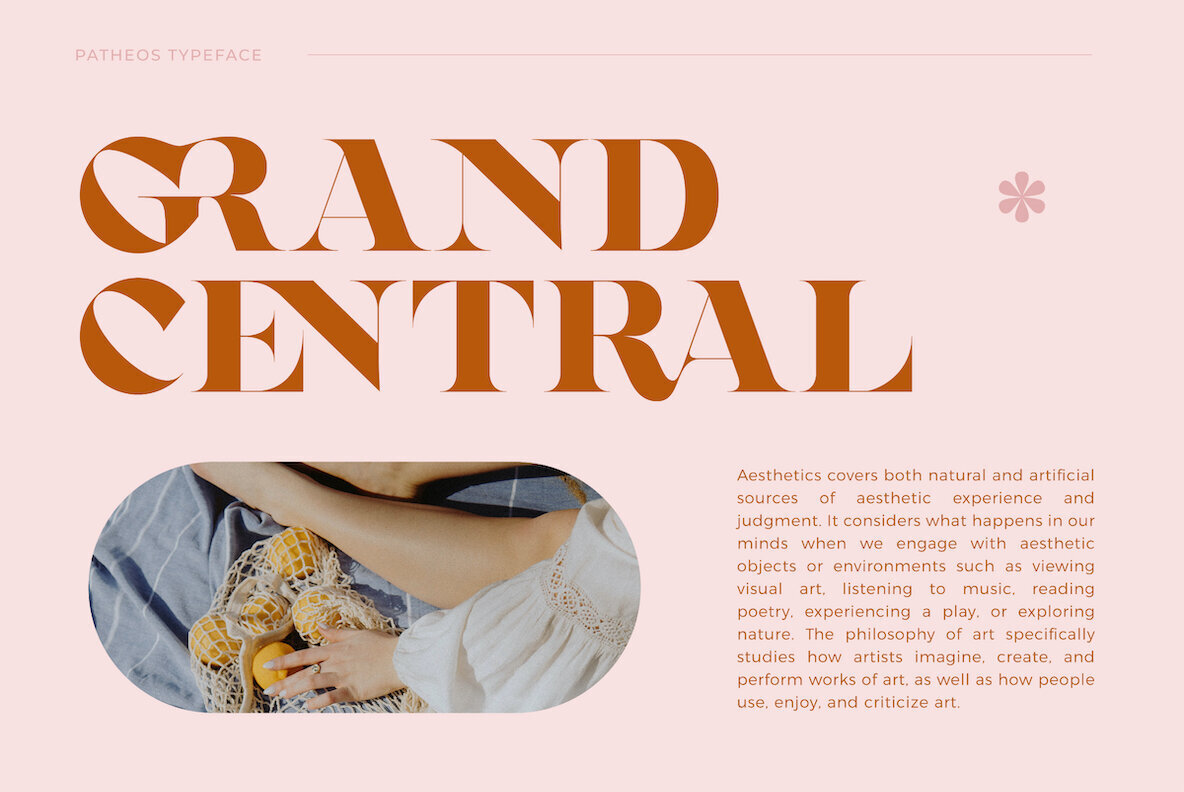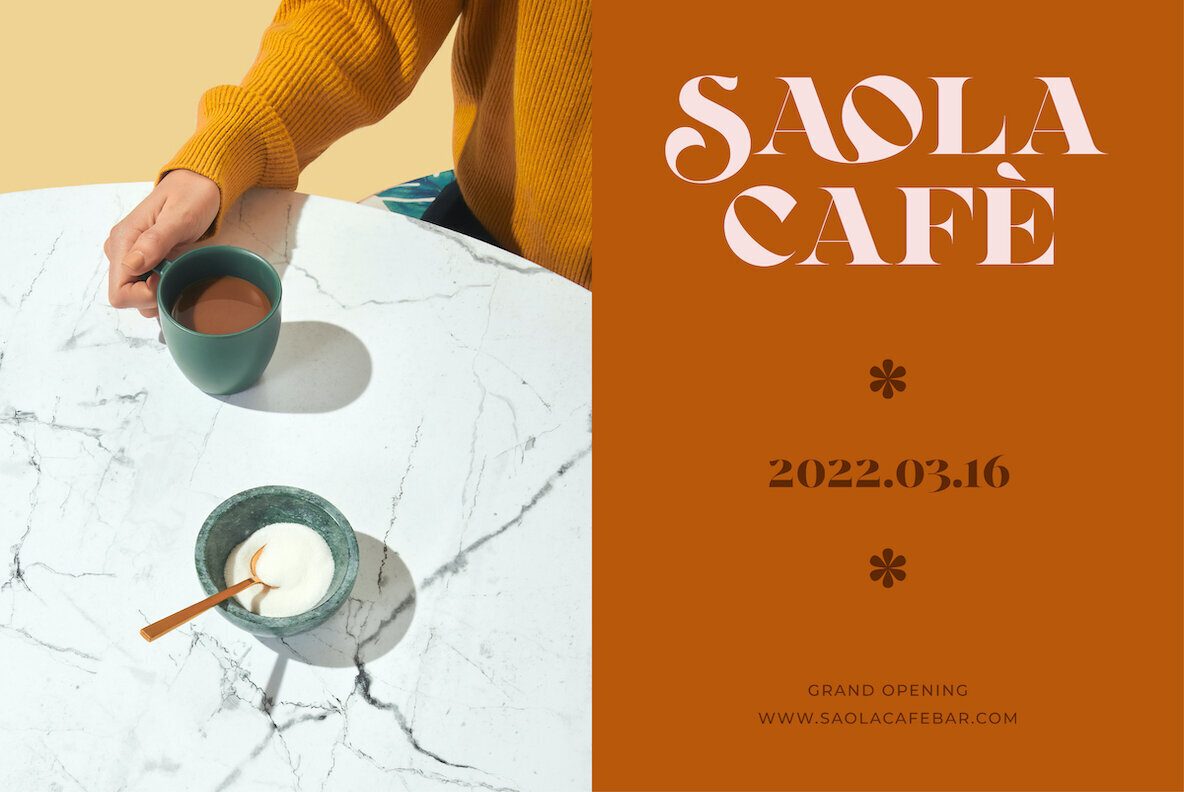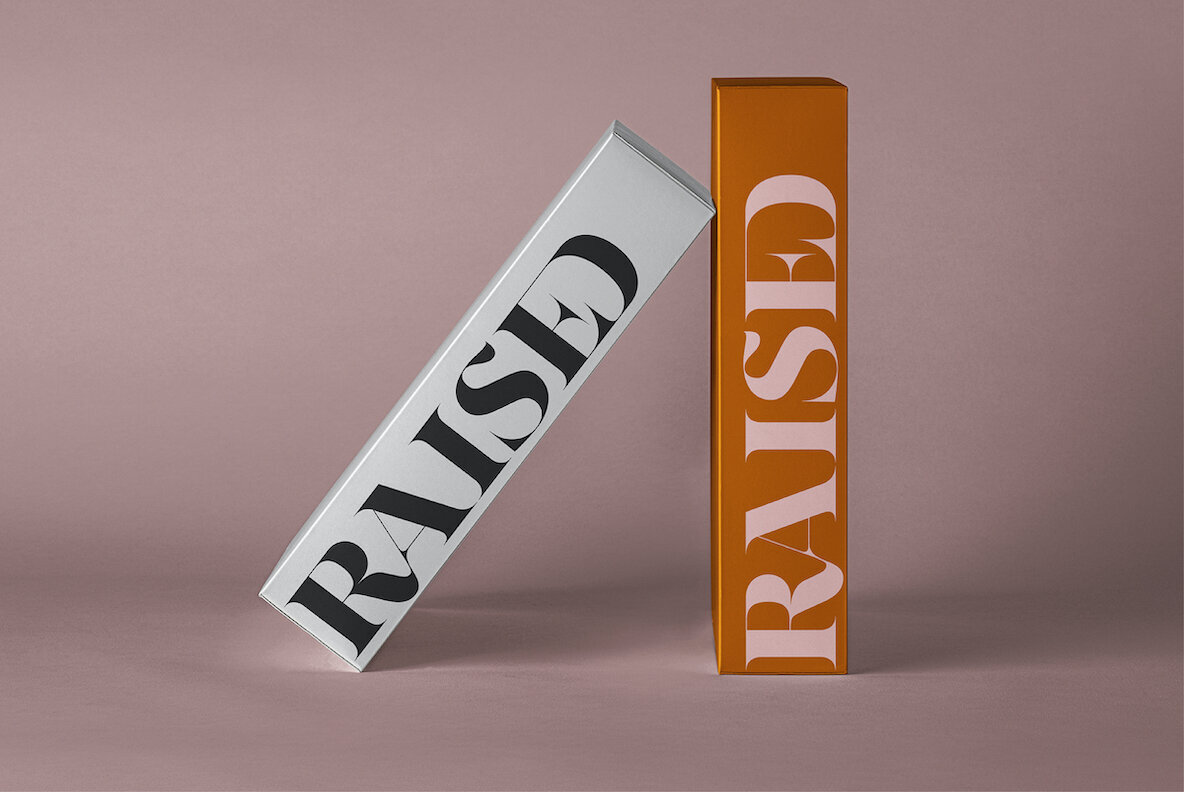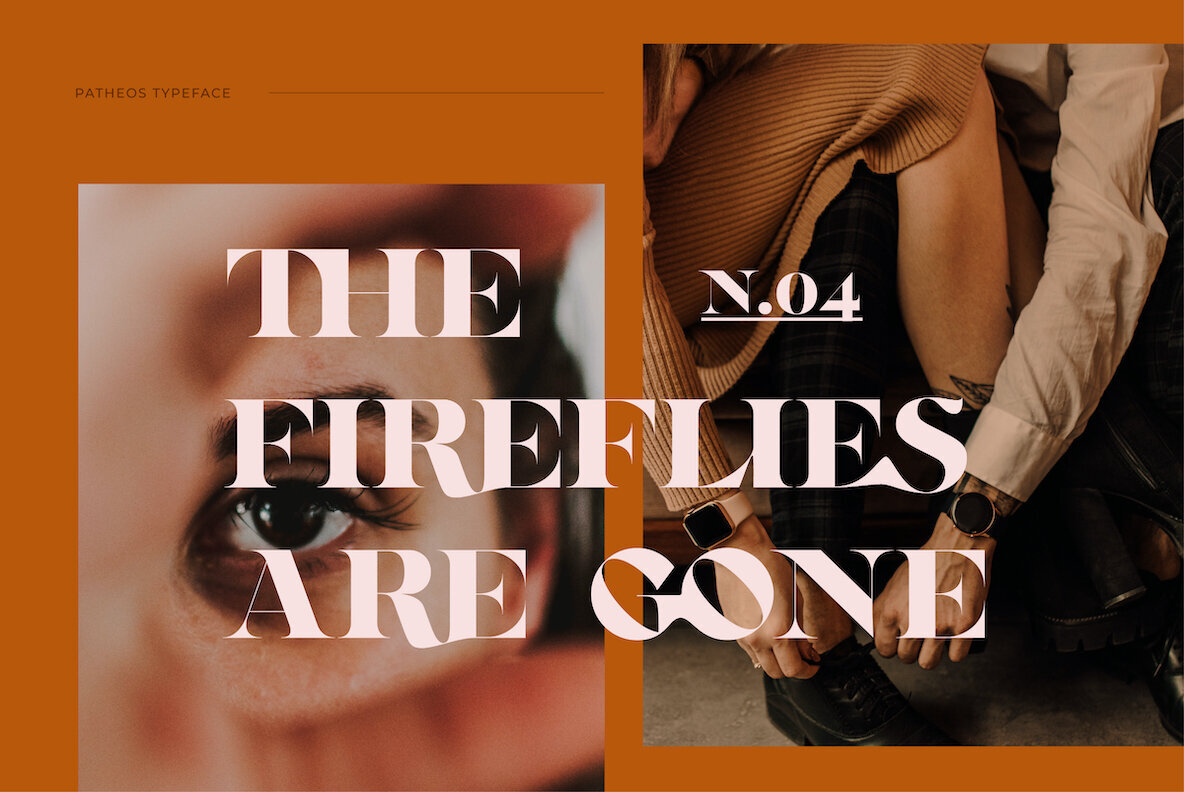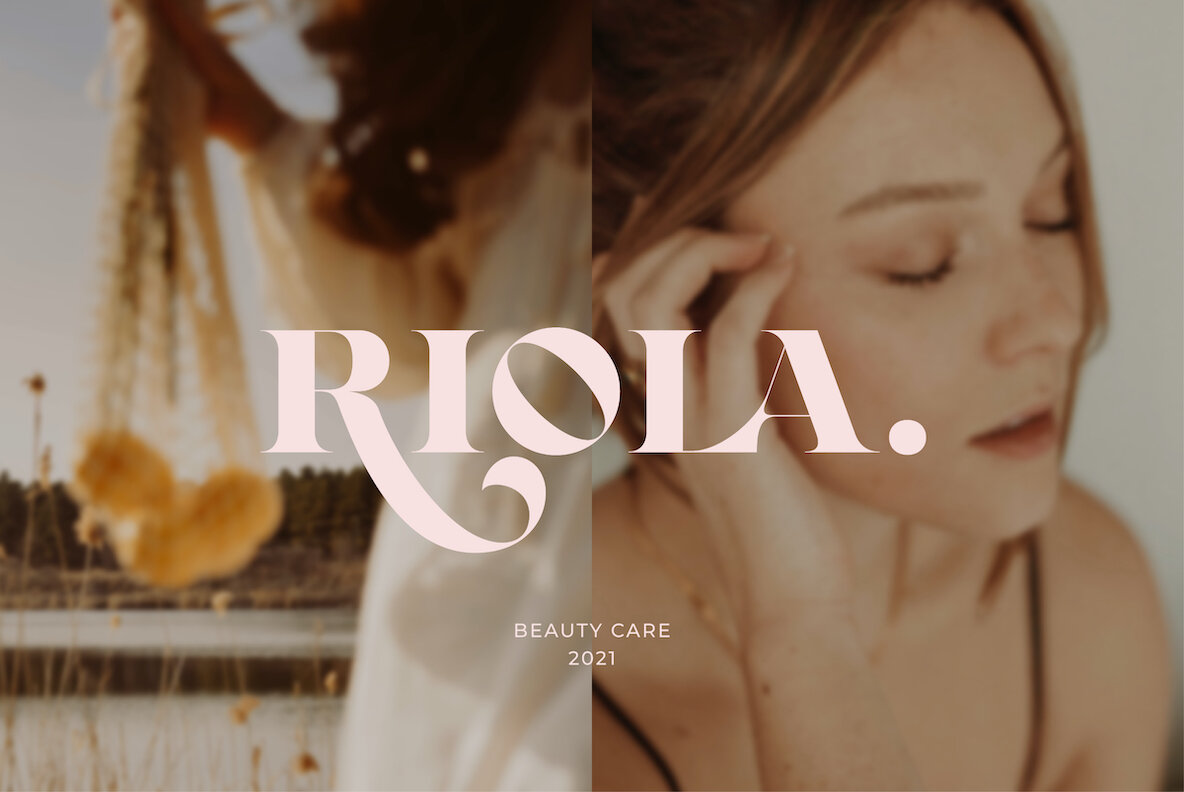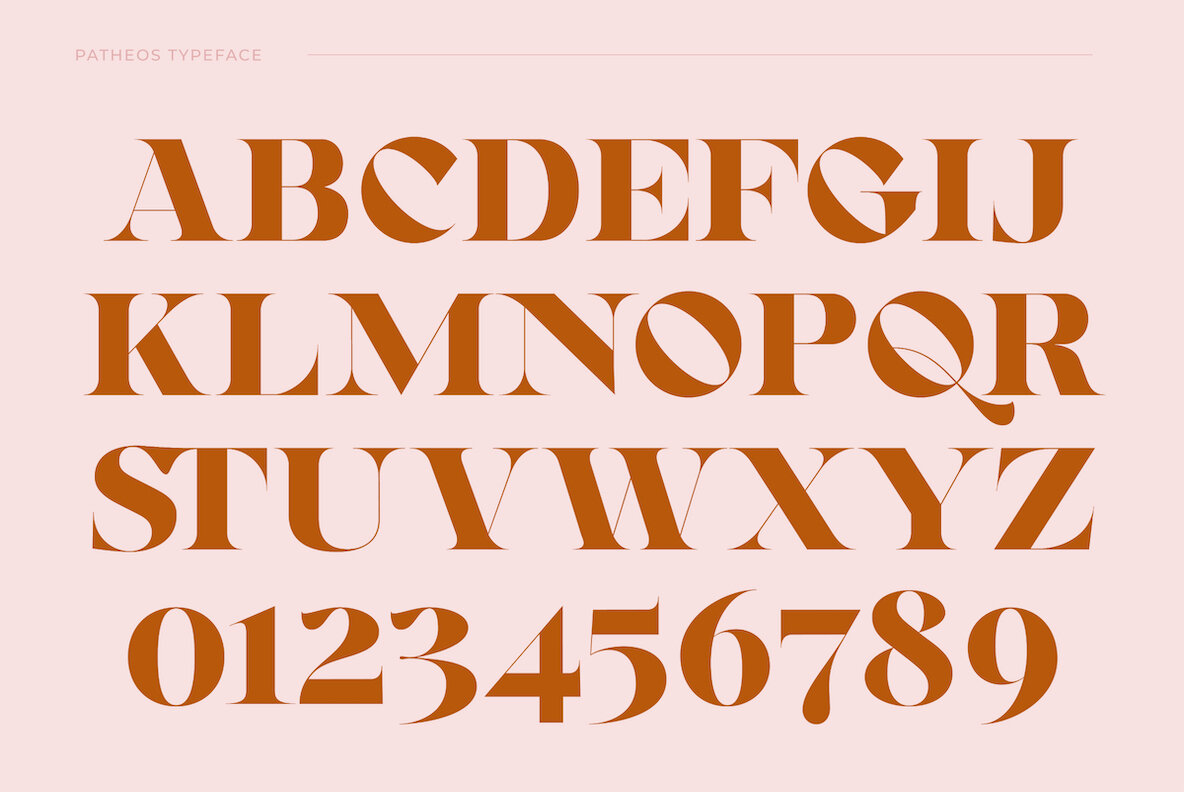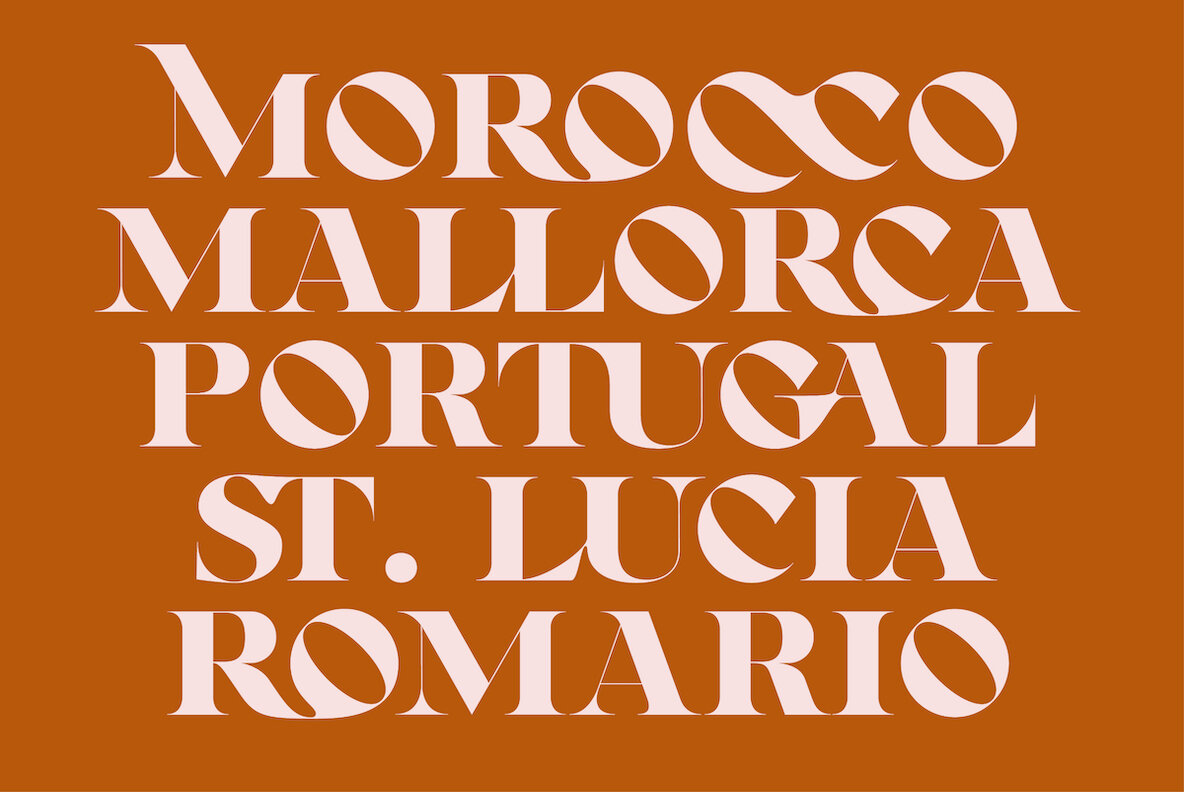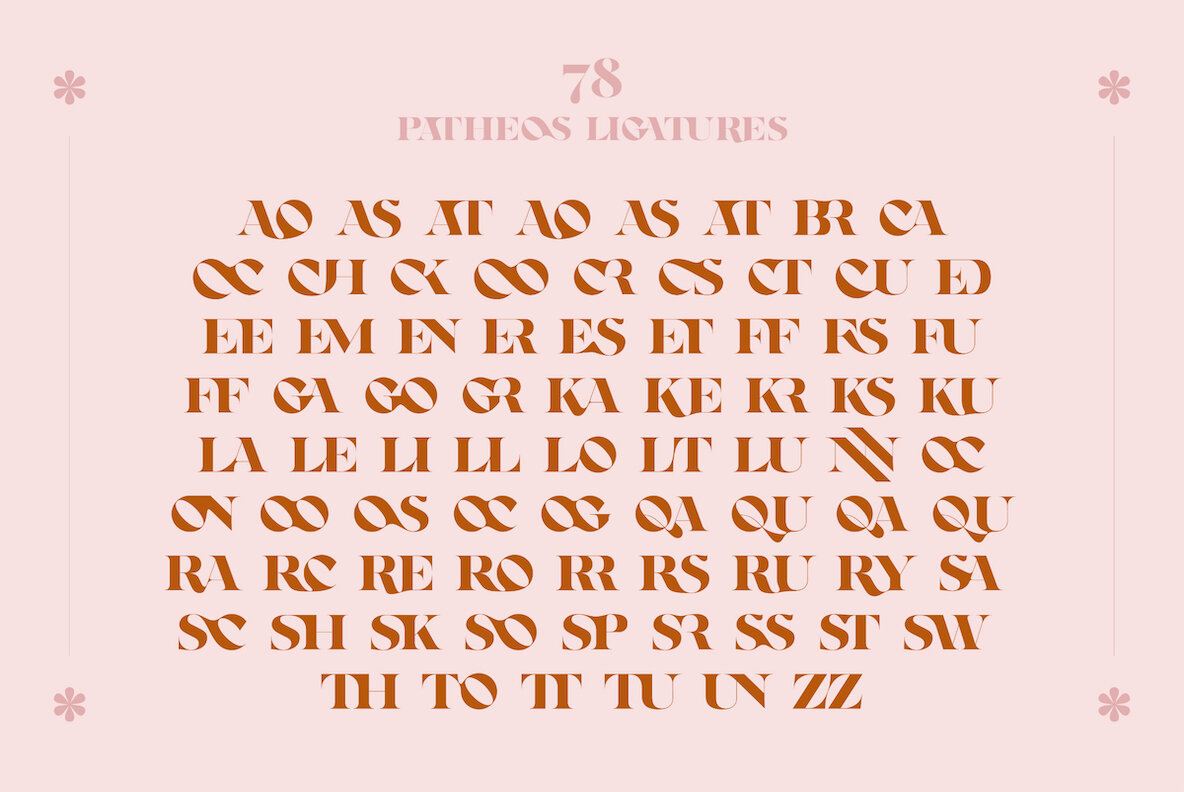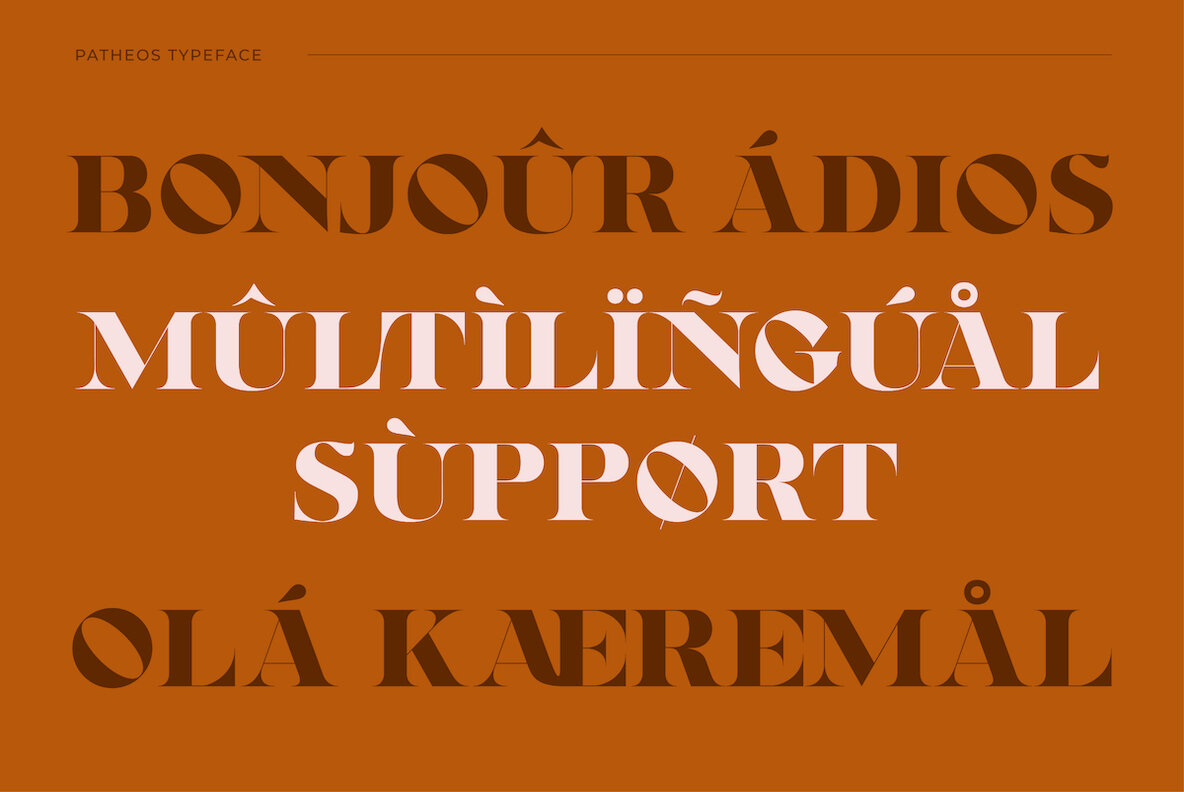
Patheos Font
Patheos Regular
Patheos is a striking modern display serif typeface with high contrast lines and amazing ligature options that will make your life easy. Impress your clients with the 78 included ligatures to achieve a custom look in seconds. Patheos also includes multilingual support.